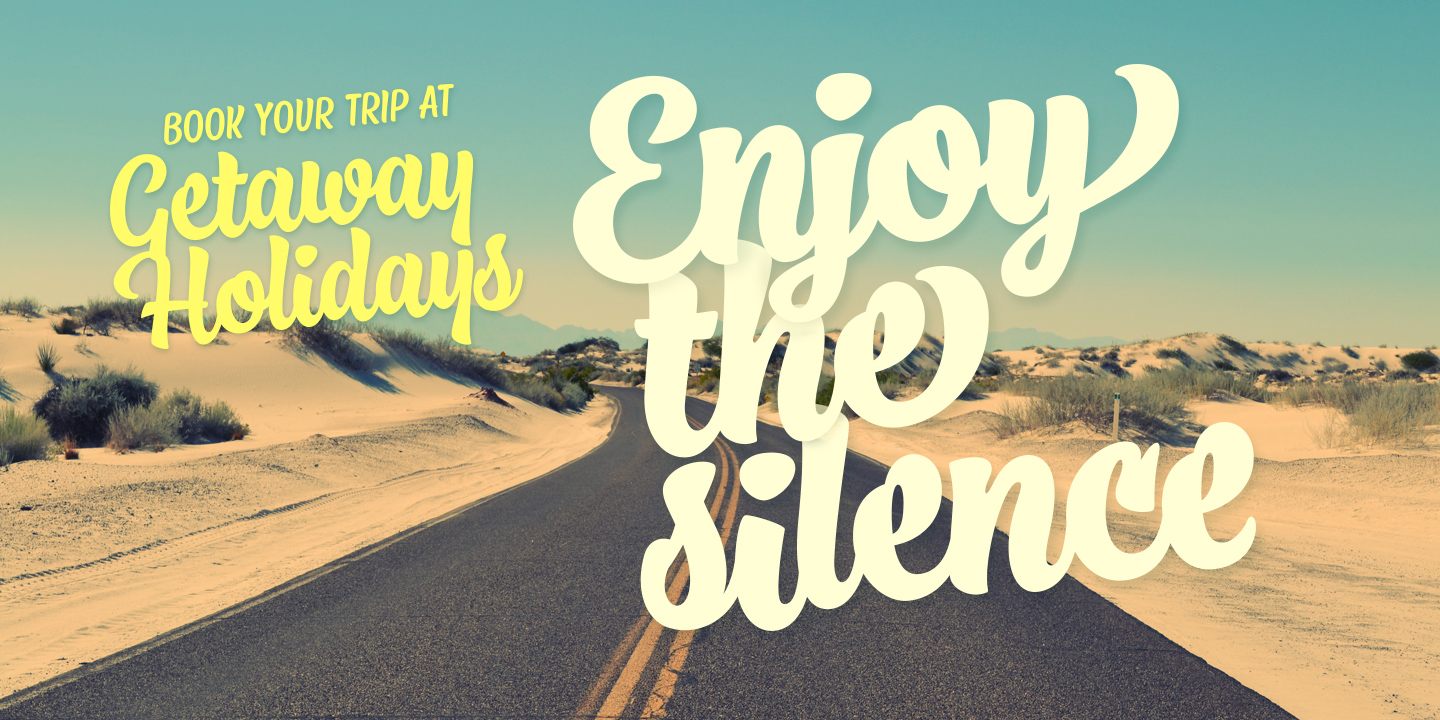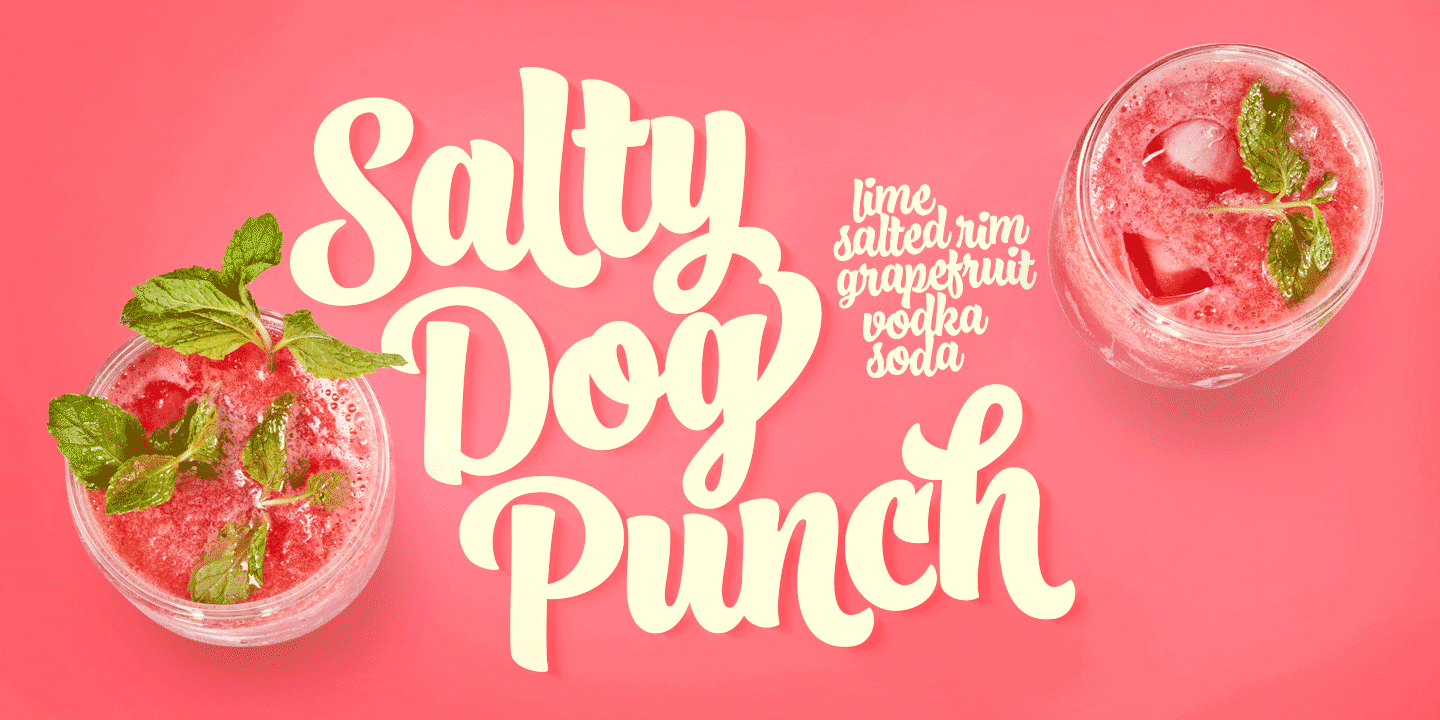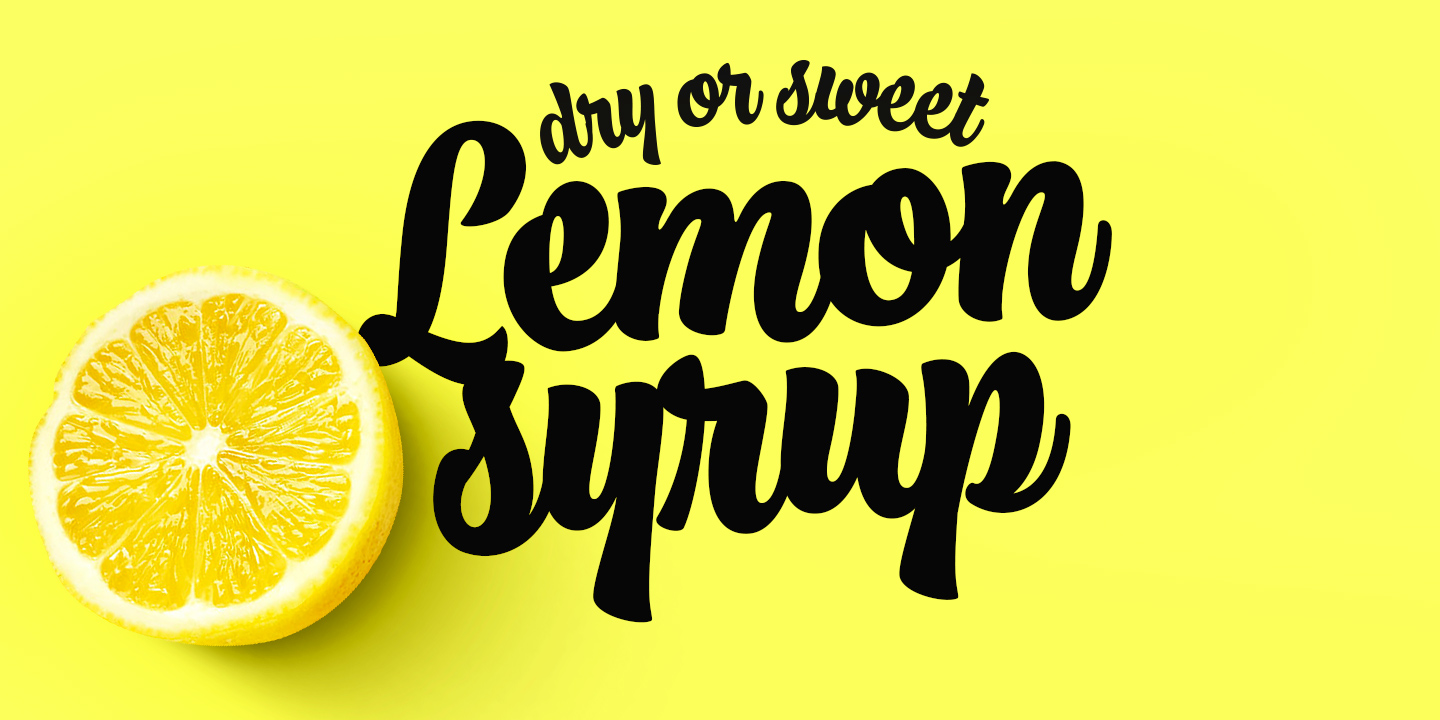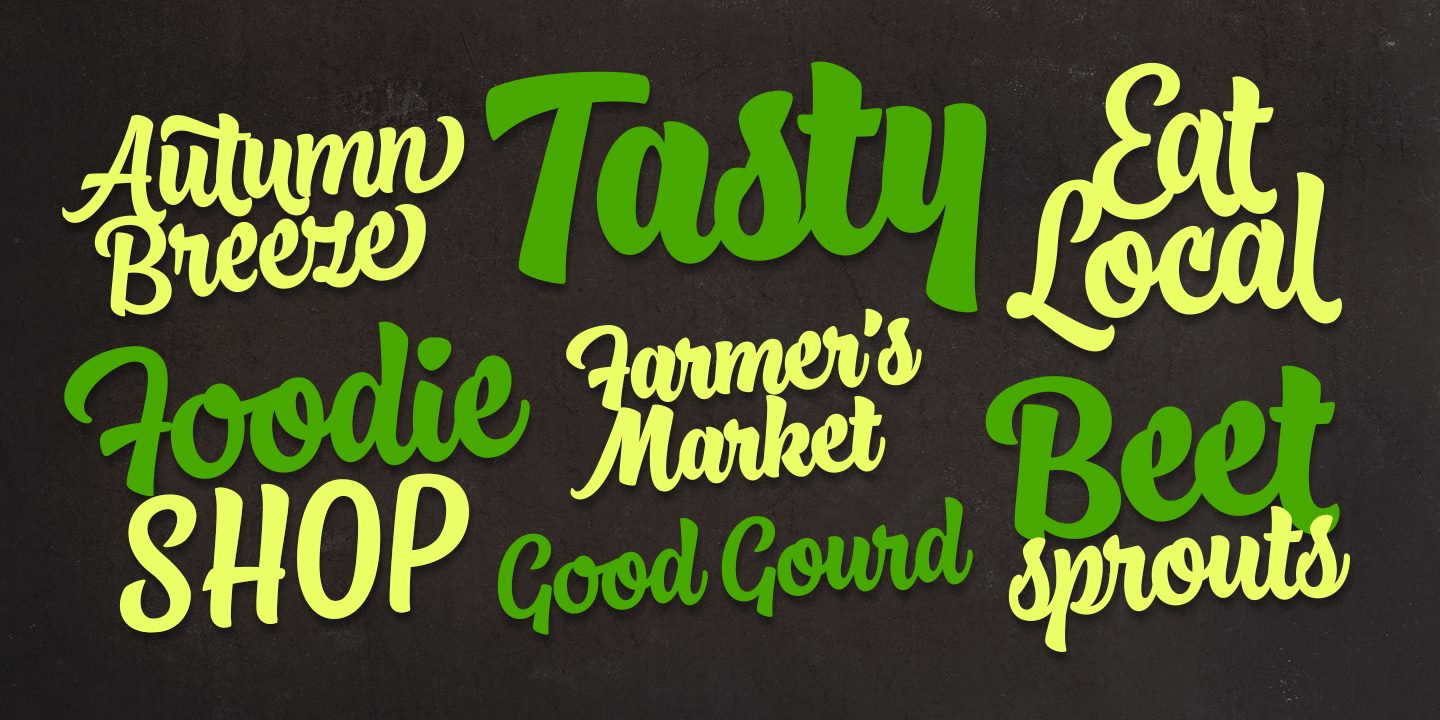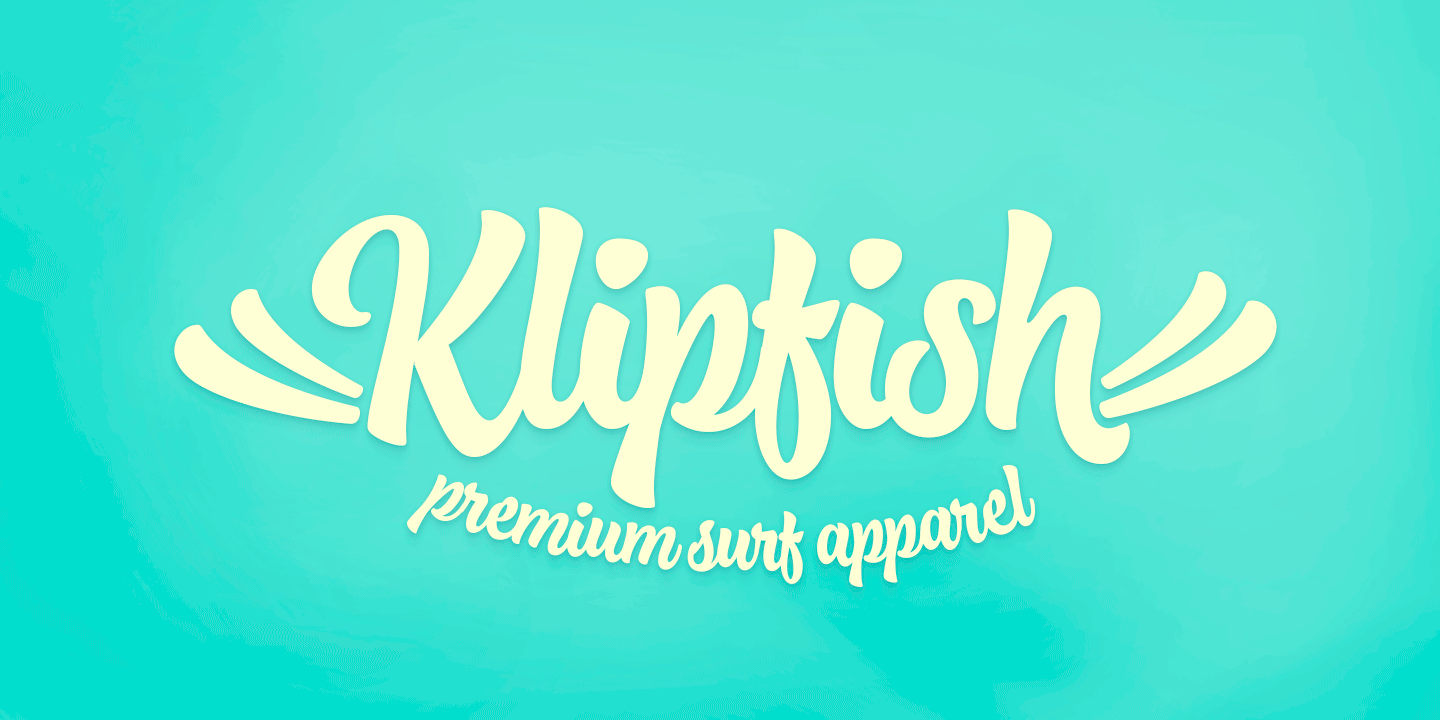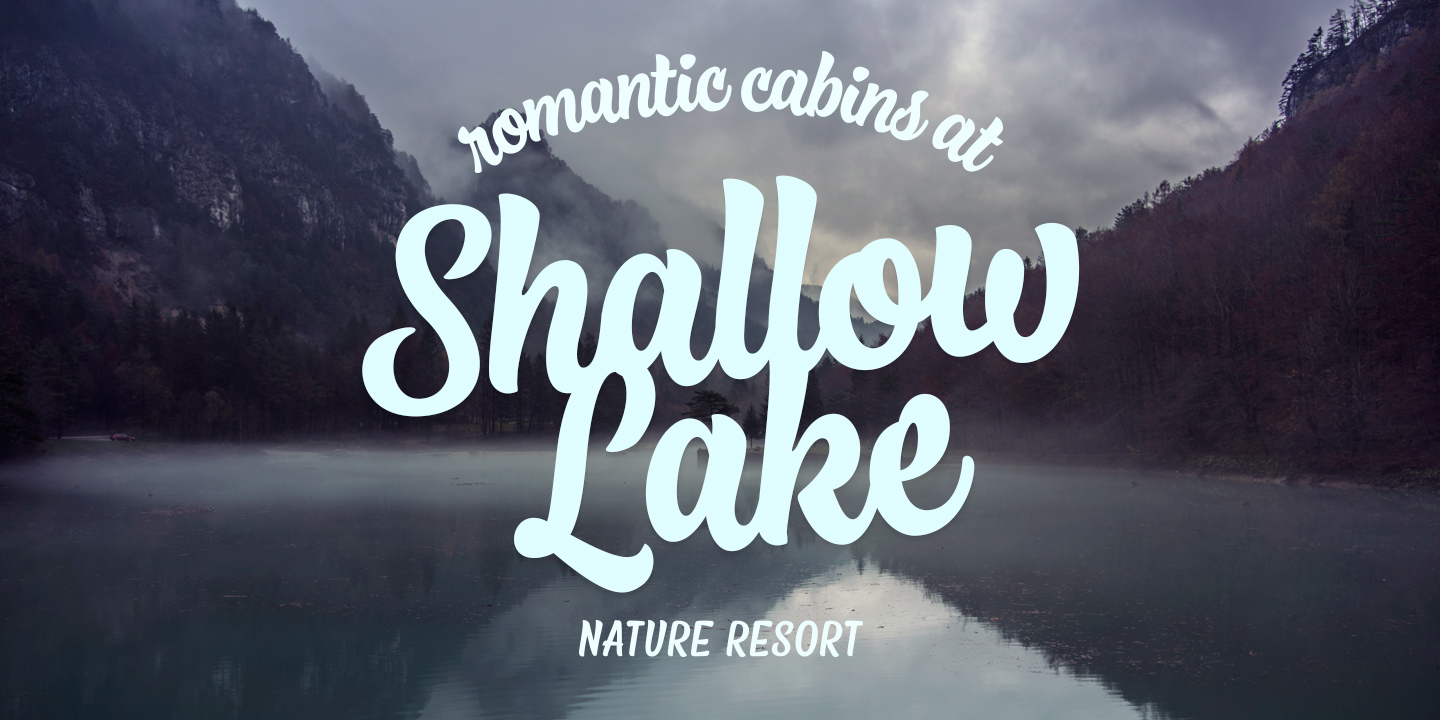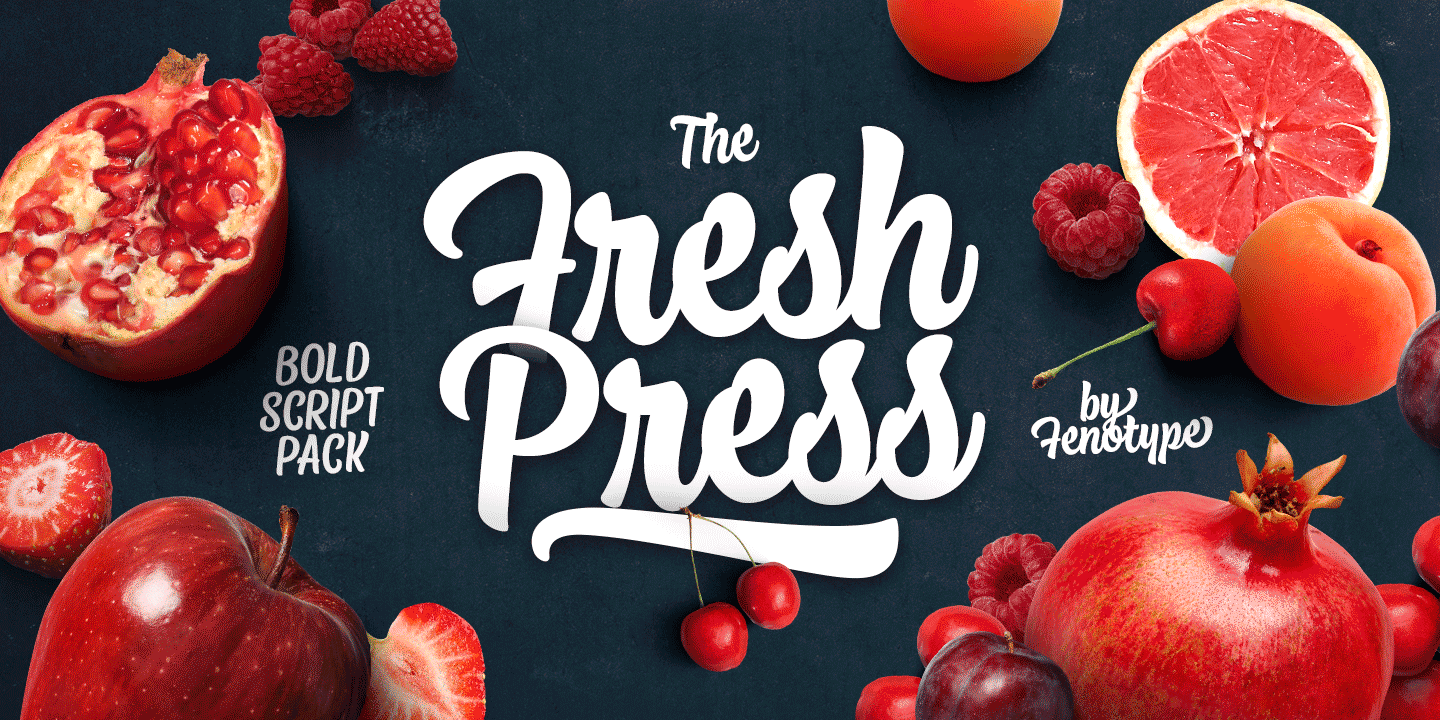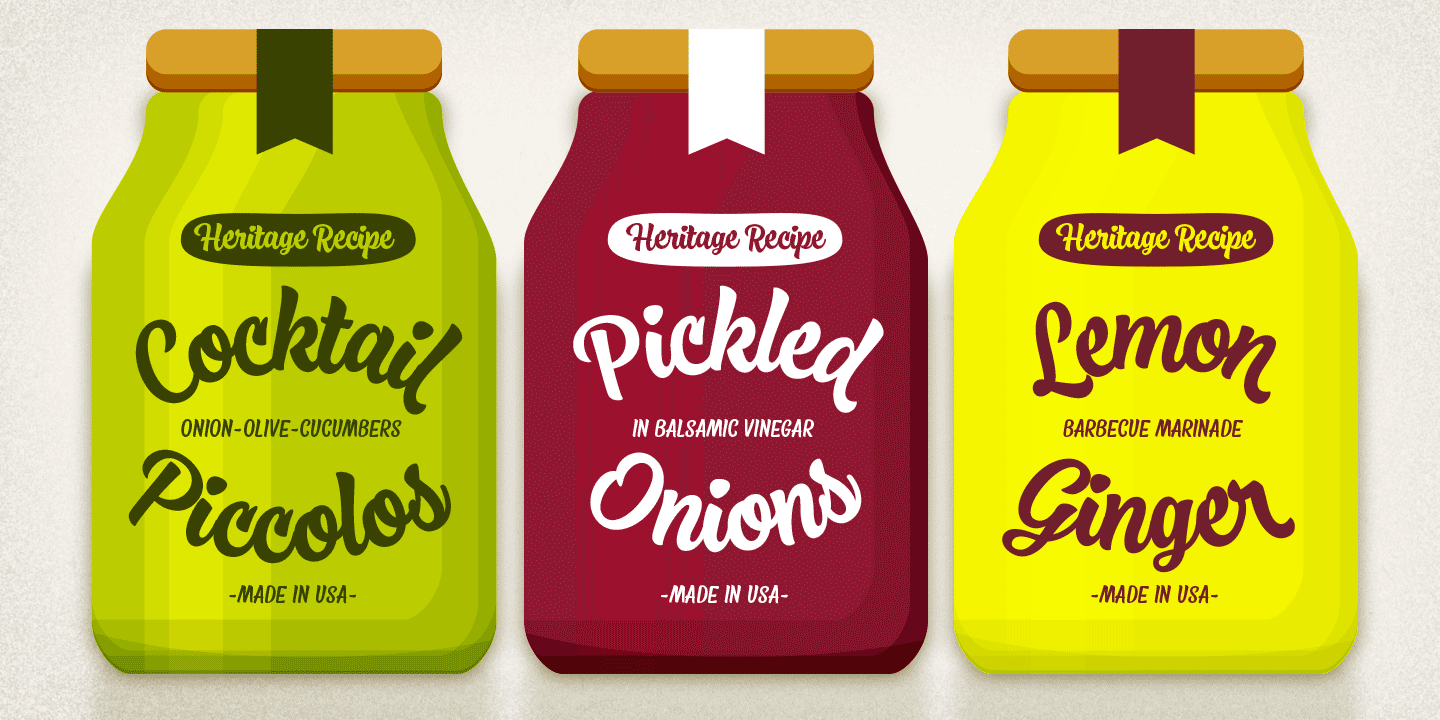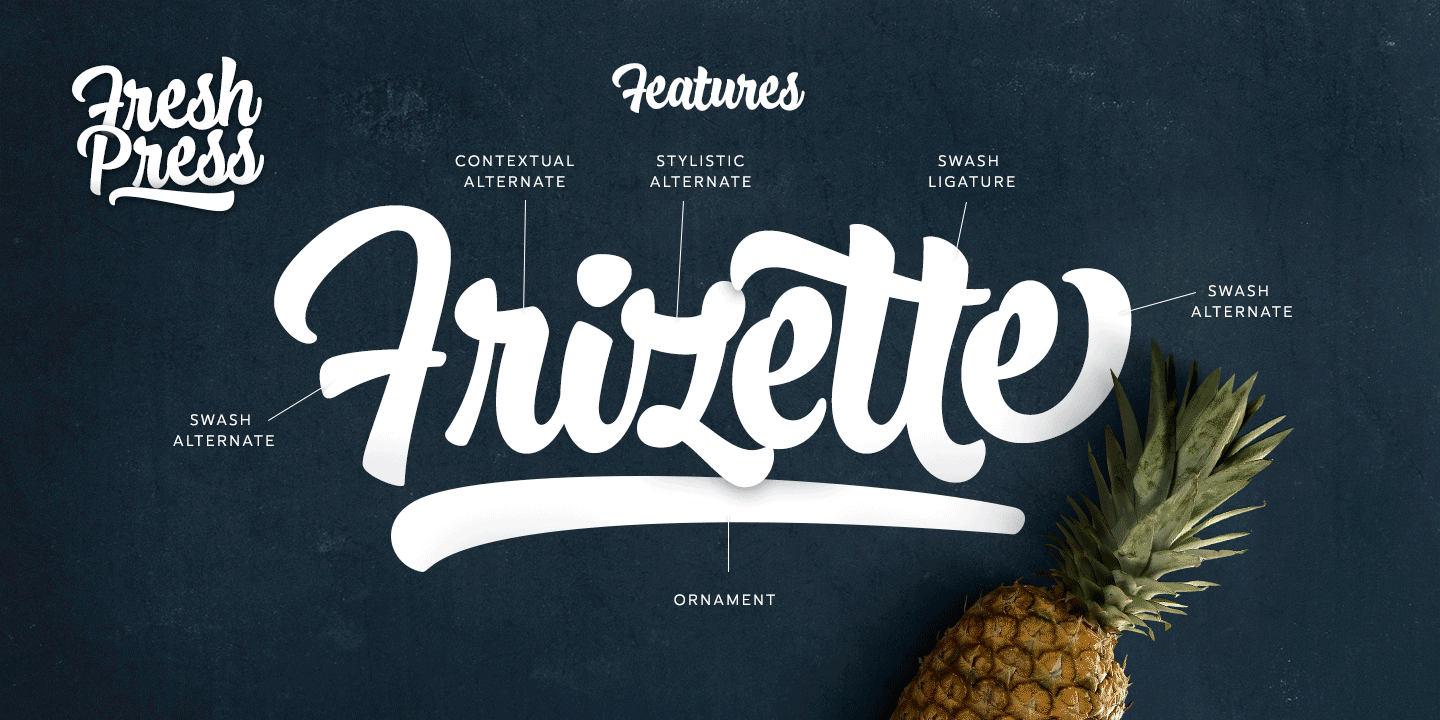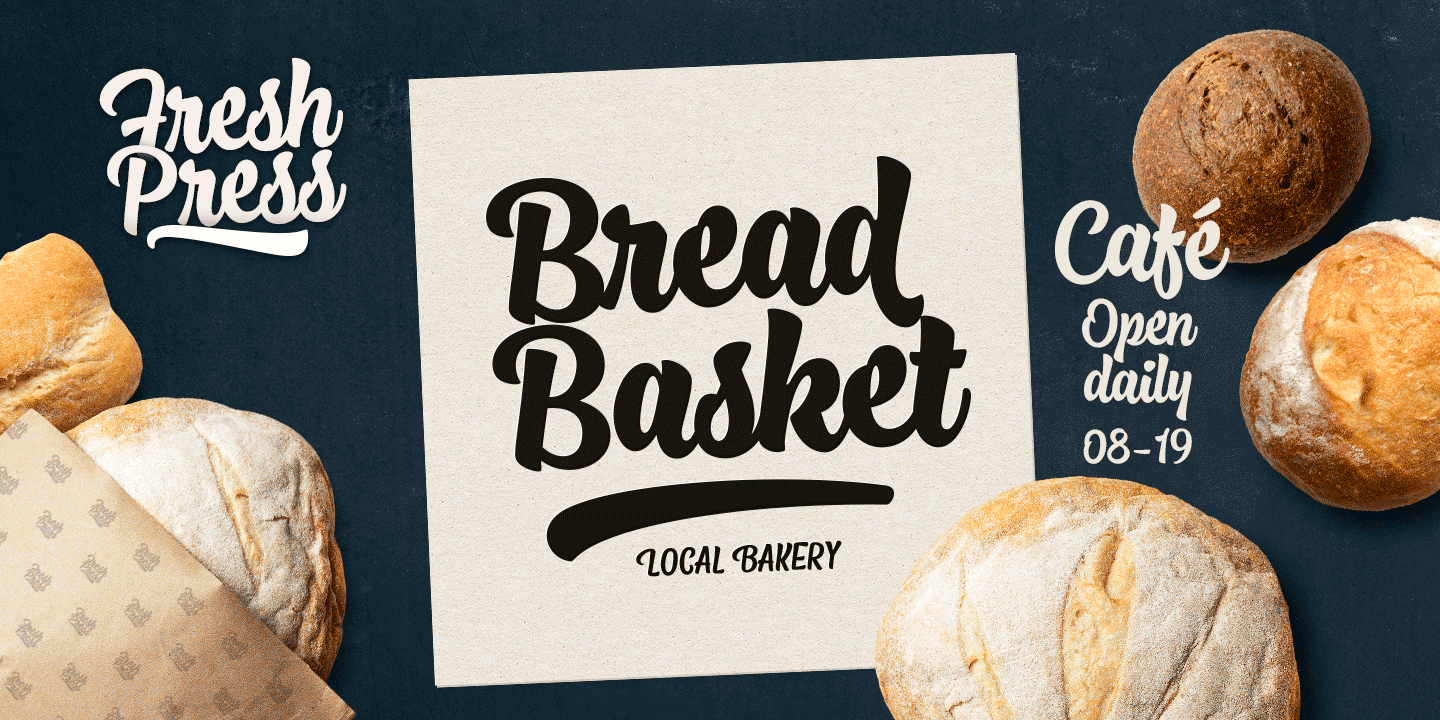
Fresh Press Family (8 fonts)
Fress Press consists of Regular, Bold, Caps and Ornaments that all play smooth together. If Fresh Press feels too clean there’s a Printed version of the whole family with rough outline and texture.
Fresh Press is equipped with Standard Ligatures and Contextual Alternates that maintain the text flow smooth. If that isn’t enough try Swash, Stylistic or Titling Alternates in any OpenType savvy program or manually seek for alternates from character map.
Fresh Press is a clear and strong choice for any display use from branding to packaging and online to print.